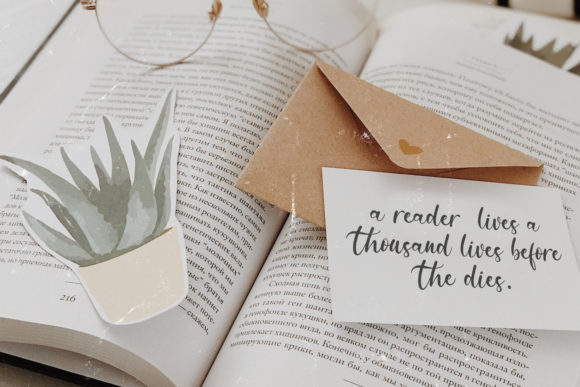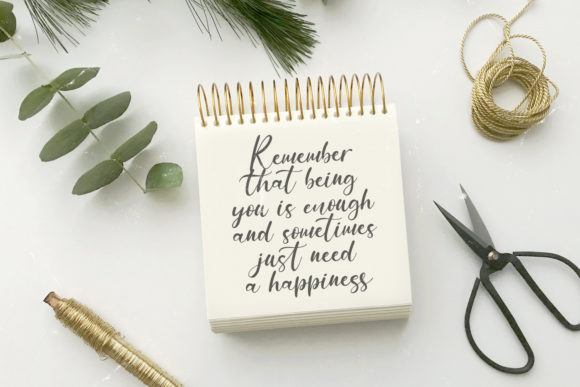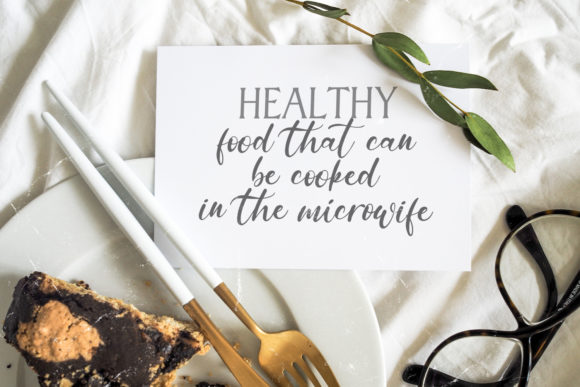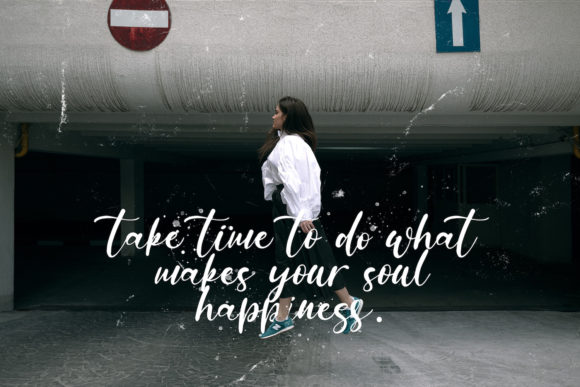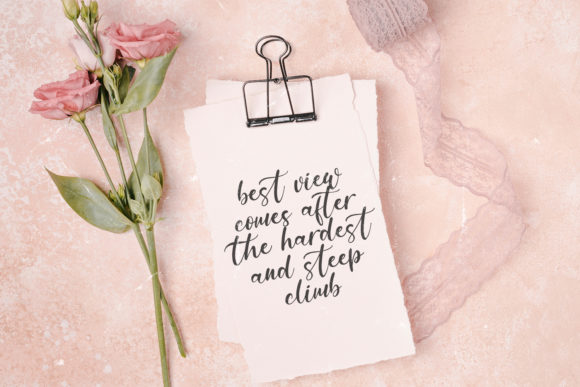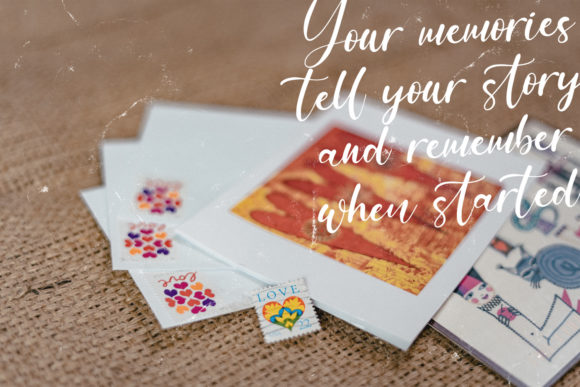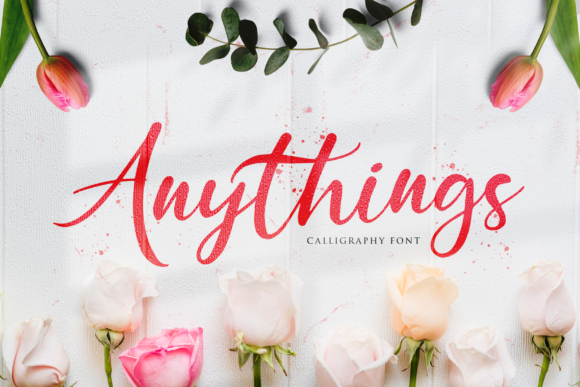
Introducing Anythings Font: Elevate Your Designs with Elegance
Are you on the hunt for a font that exudes sophistication, elegance, and a touch of modern flair? Look no further than Anythings Font, a beautifully crafted handwritten typeface that is sure to capture your heart. With its perfect blend of classic calligraphic influences and contemporary design elements, Anythings Font is the ideal choice for designers and crafters seeking to elevate their projects to new heights.
The Beauty of Anythings Font
Anythings Font is a masterfully designed typeface that boasts a range of stunning features. Its varying baseline, smooth lines, and gorgeous glyphs work together to create a font that is both visually striking and effortlessly elegant. Whether you’re working on a branding project, crafting a beautiful wedding invitation, or designing a stylish packaging label, Anythings Font is the perfect choice.
One of the standout features of Anythings Font is its PUA (Private Use Area) encoding. This means that you can access all of the font’s glyphs and swashes with ease, giving you unparalleled creative control over your designs. With PUA encoding, you can effortlessly navigate the font’s extensive character set, including alternates, ligatures, and other special characters.
Stunning Alternates and Swashes
Anythings Font features a range of stunning alternates and swashes, allowing you to add an extra touch of elegance and sophistication to your designs. Whether you’re looking to create a bold statement or add a subtle flourish, the font’s alternates and swashes provide endless possibilities for creative expression.
Anythings Font is the perfect choice for designers and crafters seeking to add a touch of elegance and sophistication to their projects. With its versatile design and extensive character set, this font is ideal for a wide range of applications, from:
- Packaging labels and product design
- Social media graphics and digital art
Why Choose Anythings Font?
So why choose Anythings Font over other typefaces? Here are just a few reasons why this font stands out from the crowd:
- Elegant design: Anythings Font boasts a beautiful, elegant design that is sure to impress.
- Versatility: With its extensive character set and PUA encoding, this font is perfect for a wide range of applications.
- Easy to use: Anythings Font is incredibly easy to use, even for designers who are new to working with handwritten typefaces.
- High-quality: This font is crafted to the highest standards, ensuring a flawless design that will elevate your projects to new heights.
Get Ready to Fall in Love
With its stunning design, versatile features, and ease of use, it’s no wonder that Anythings Font is quickly becoming a favorite among designers and crafters. Whether you’re a seasoned pro or just starting out, this font is sure to capture your heart and inspire your creativity. So why wait? Download Anythings Font today and experience the power of elegant, sophisticated design for yourself.
In conclusion, Anythings Font is a truly exceptional typeface that is sure to elevate your designs to new heights. With its elegant design, versatile features, and ease of use, this font is perfect for designers and crafters seeking to add a touch of sophistication and elegance to their projects. So why wait? Discover the beauty of Anythings Font for yourself and take your designs to the next level.